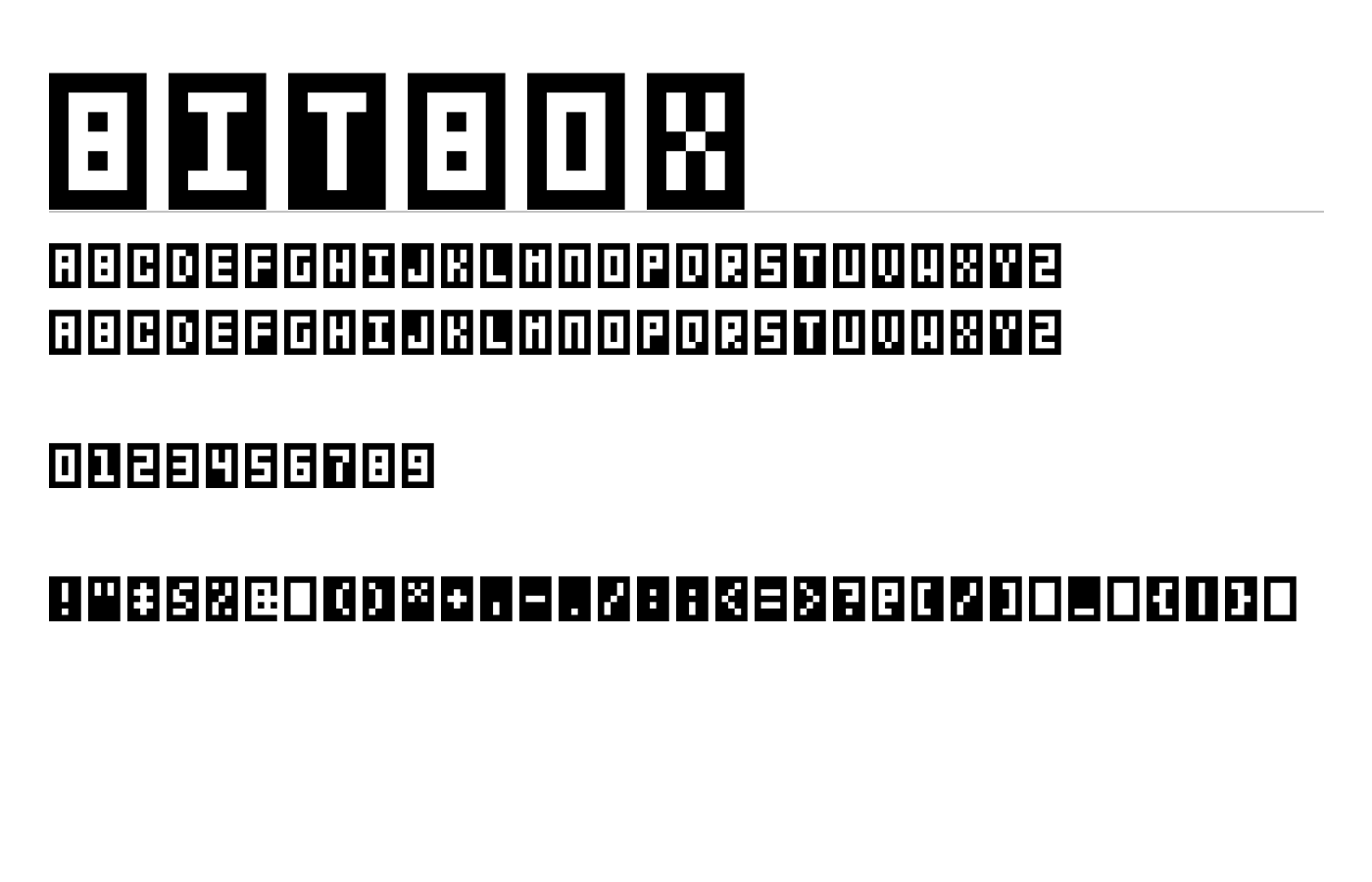
BitBox is a bold, blocky sans serif font featuring a pixelated, geometric style that evokes a retro digital or video game feel. Its uniform, square-shaped letters with consistent stroke weight and enclosed forms give it a strong, structured presence, making it ideal for tech-inspired designs, gaming branding, and digital displays where a distinctive, modern yet nostalgic look is desired. This font works best in headlines, logos, and signage where its unique grid-like aesthetic can stand out and capture attention.
BitBox Font